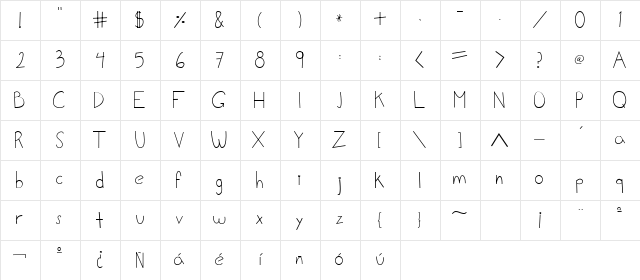
lalo Regular
Foundry: Eduardo Padilla Aguilar
Designer: Eduardo Padilla Aguilar
Design Context for lalo
lalo is a composed and adaptable typeface that performs quietly and consistently across a wide range of design contexts.